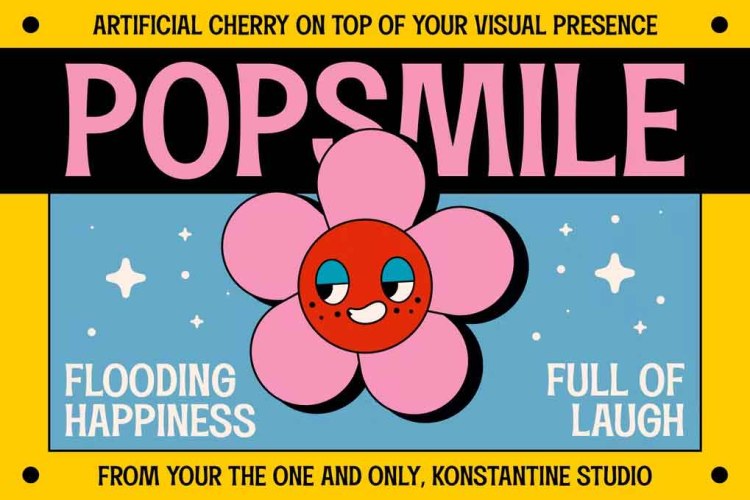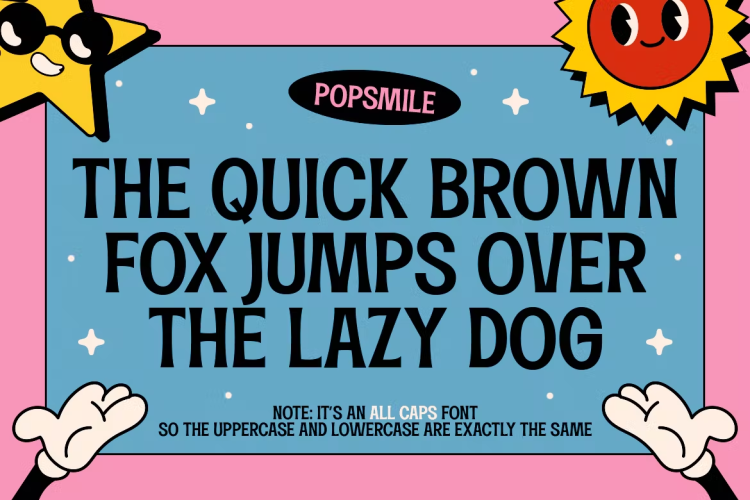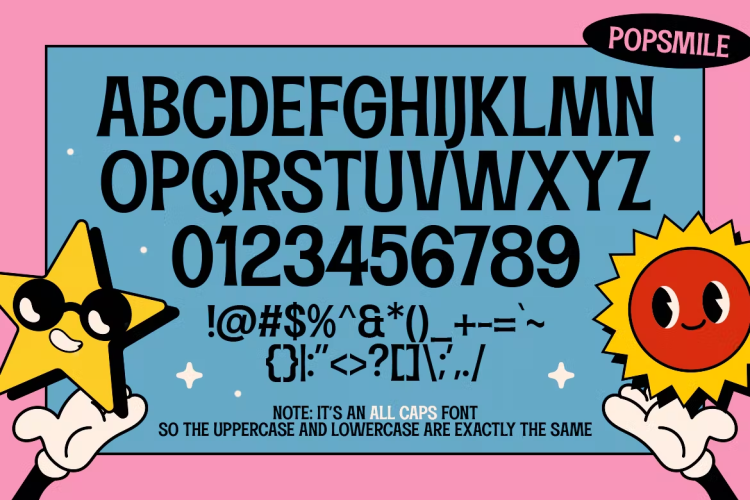
Popsmile Retro Pop Font
Popsmile is inspired by the retro pop culture visual back in the 70s and 80s era. We talk about packaging, posters, signs, advertising, toys, and anything classic and playful stuff back in the day.
A perfect companion for your vintage and retro vibes graphic designs indeed.
Popsmile Retro Pop Font stays legible at small sizes, which makes it a strong choice for navigation, buttons and dashboards in web design and app interfaces.
Clean sans serifs like Popsmile Retro Pop Font are the default language of SaaS, fintech and product branding.
Popsmile Retro Pop Font is a Sans Serif Fonts typeface tagged Classic, Packaging, Playful, Poster. It works well for headlines, logos, posters, social media graphics and branding projects that need a distinctive sans serif fonts look.